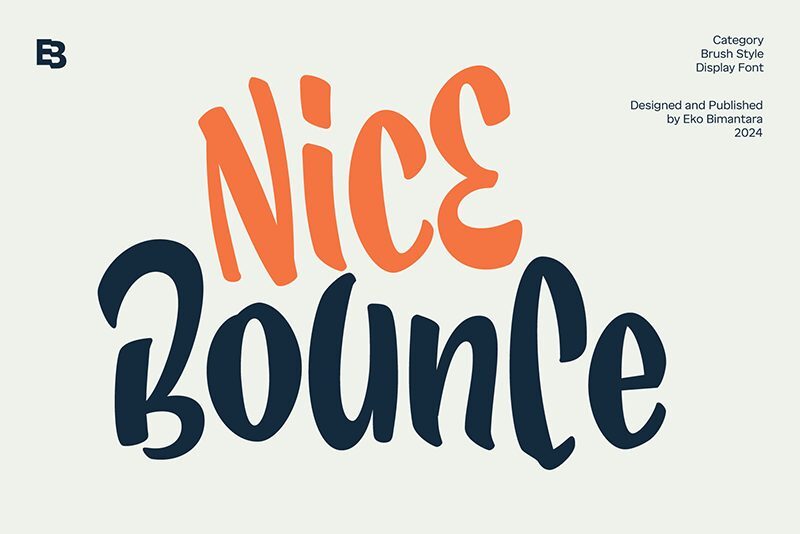
Nice Bounce is a playful and energetic handwritten font characterized by its dynamic, irregular baseline and cheerful aesthetic.
Perfect for casual designs, it adds a touch of whimsical charm to any project. Its bouncy letterforms make it an excellent choice for greeting cards, children’s books, quirky logos, and engaging social media graphics. Vibrant and approachable, this font effortlessly injects a lively, hand-crafted feel into your creative typography.